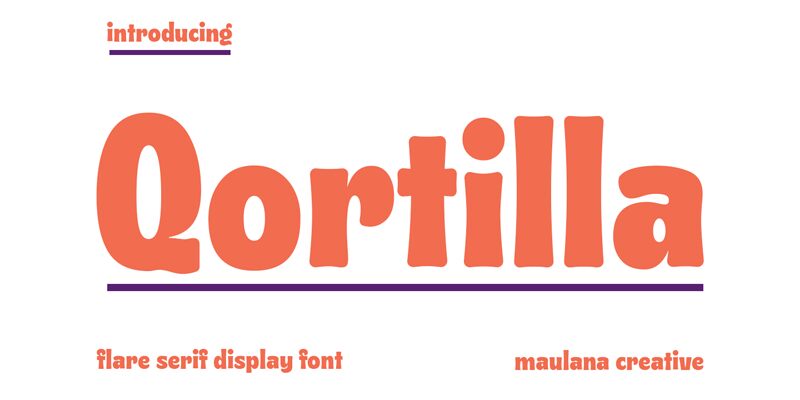
Qortilla font is a big, bold, rounded sans serif typeface designed by Maulana Creative. Its high contrast and informal style give a warm and whimsical vibe. It's perfect for projects needing an impactful yet approachable look that will resonate with a wide audience. With its modern feel and distinctive soft edges, this display font adds a touch of playfulness to any layout.
Suitable for both print and digital use, Qortilla shines in branding, logos, brochures, posters, banners, covers… pretty much any situation where you need emphasis to be placed on things such as custom labels or general applications requiring high visibility!